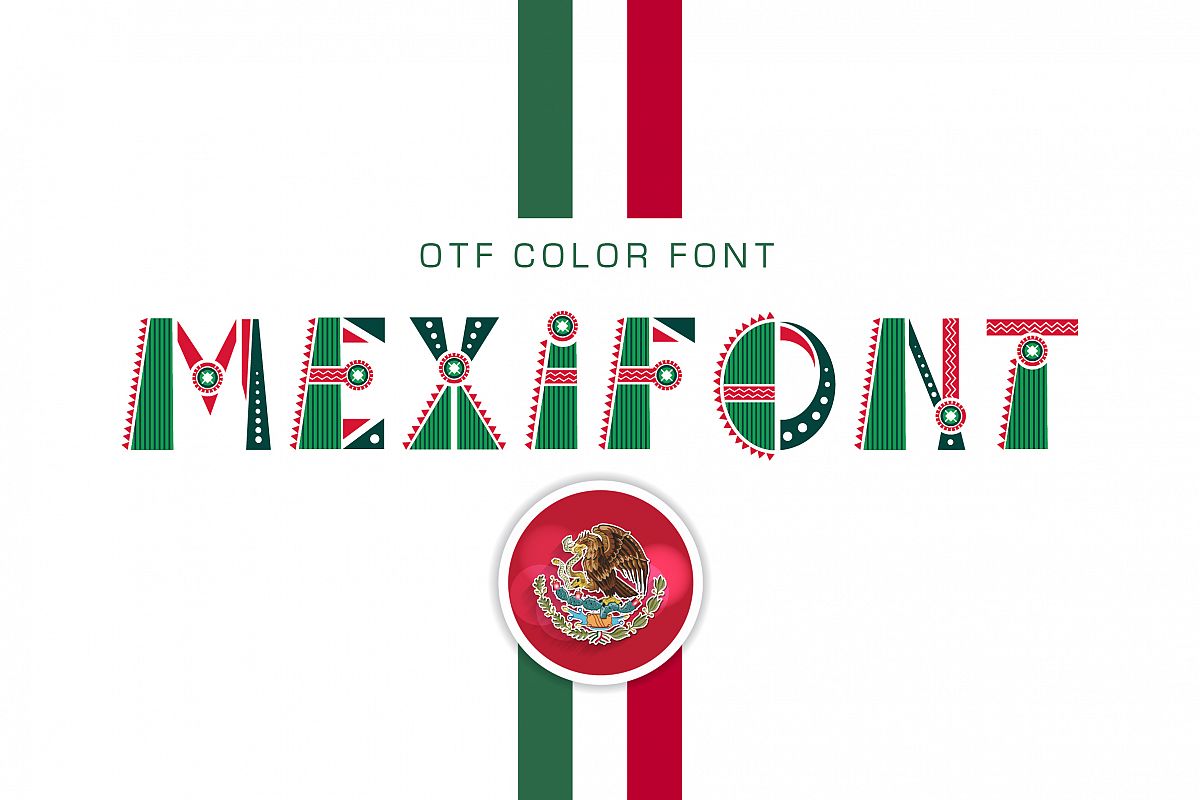
OTF color font Mexifont
OTF color font “Mexifont” Mexican National flag color creative letters from A to Z, spanish national language symbols. Alphabet Mexico with capital letters, numbers, punctuation mark.
OpenType-SVG Font was designed with Fontself Maker in Illustrator CC. Contains only uppercase letters and digits.